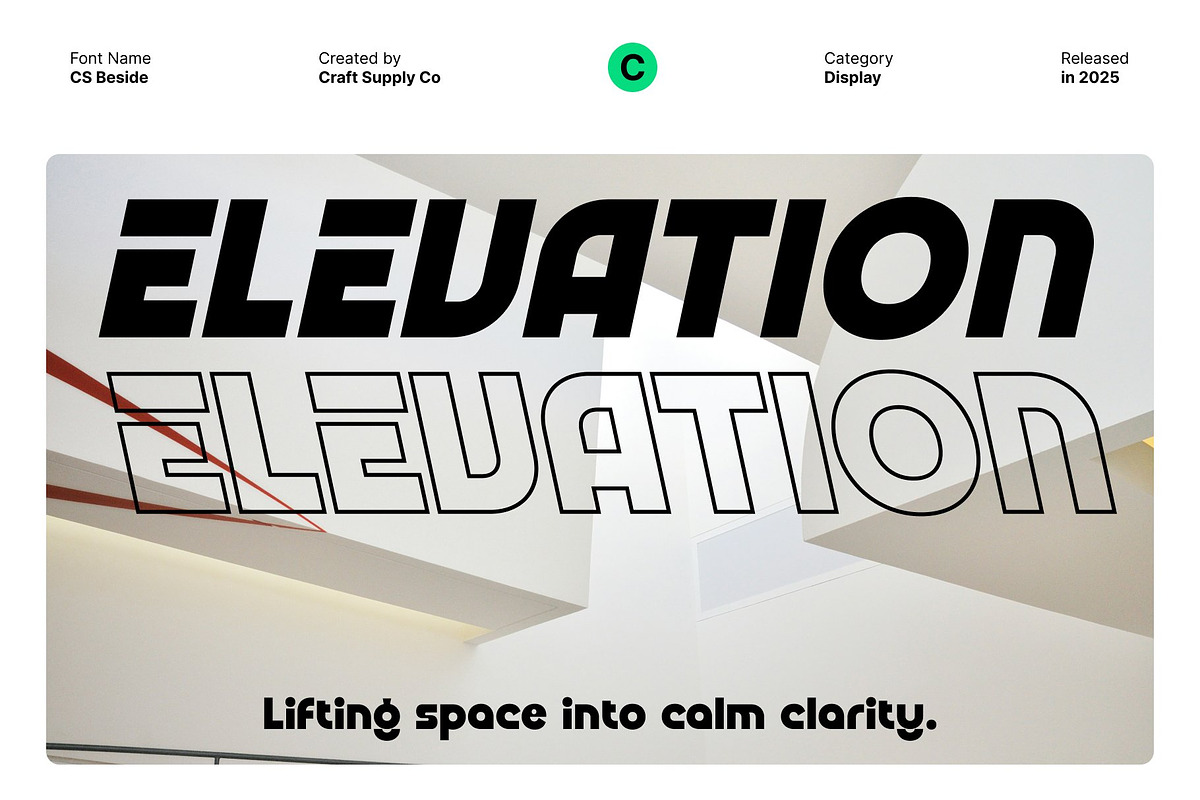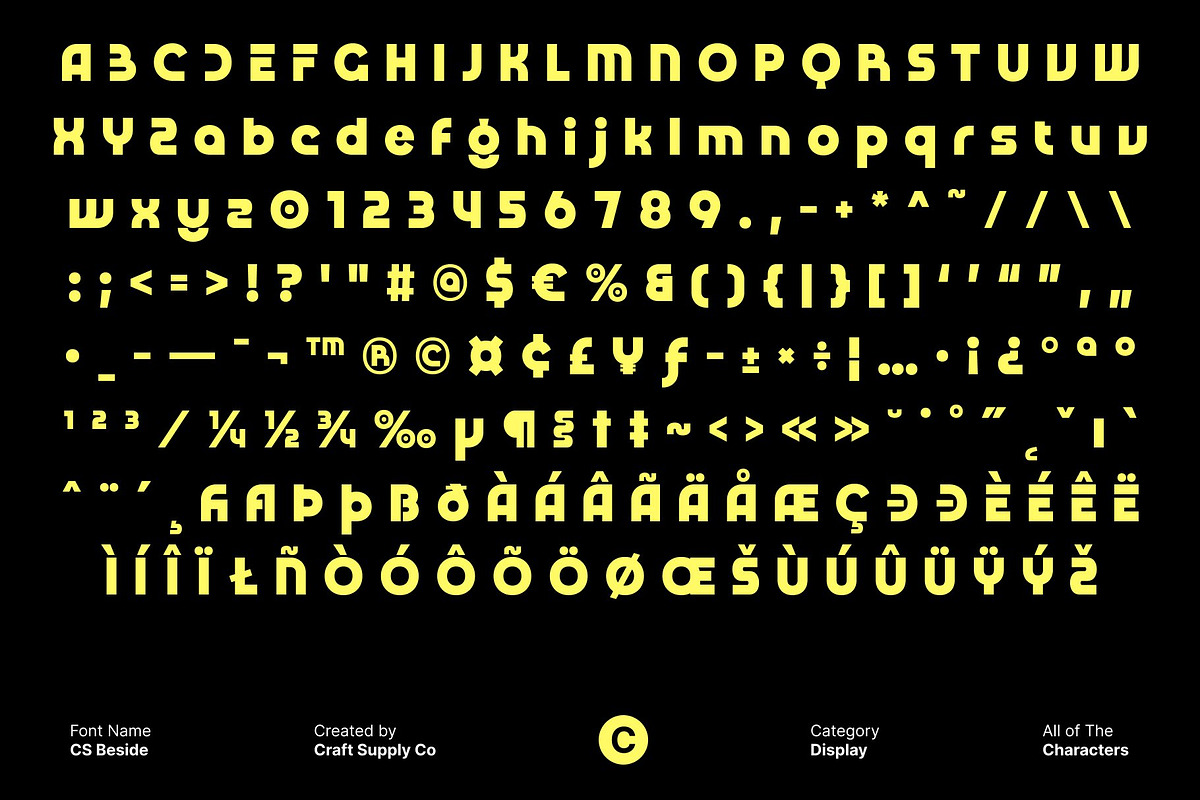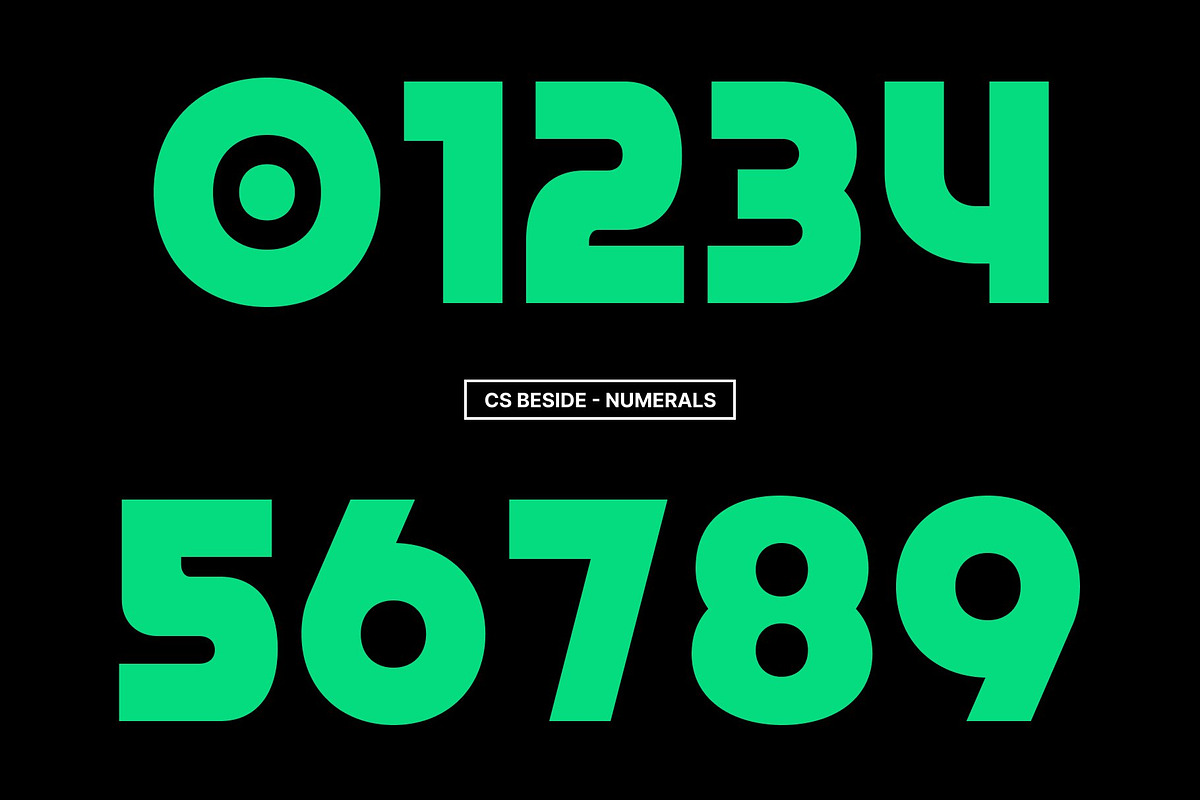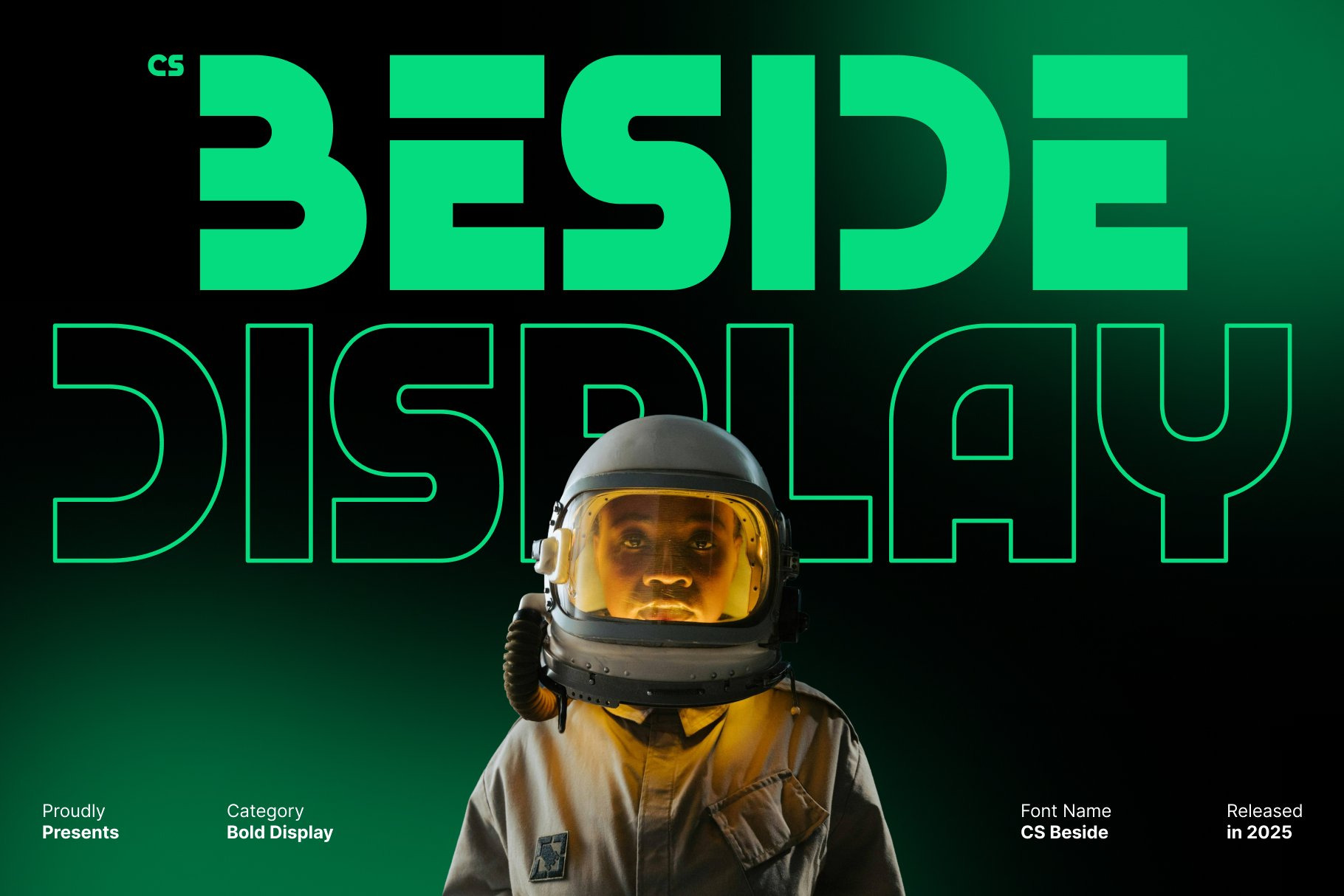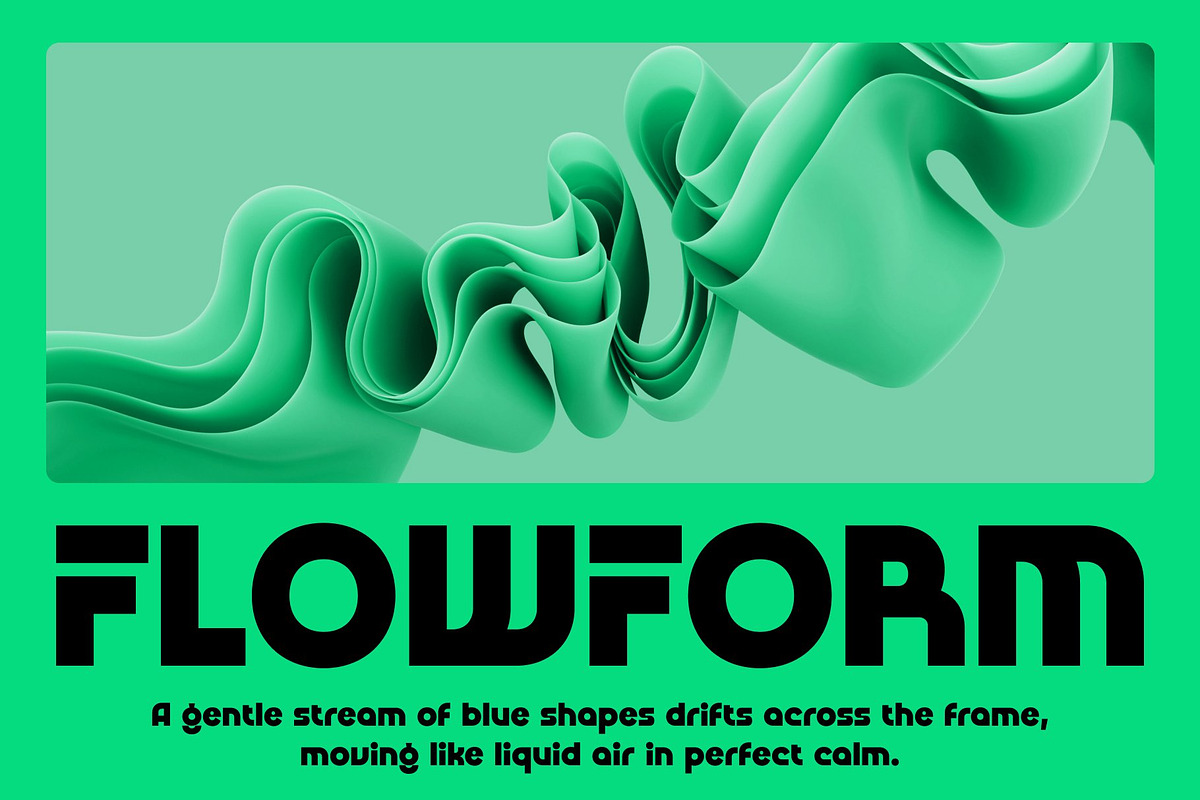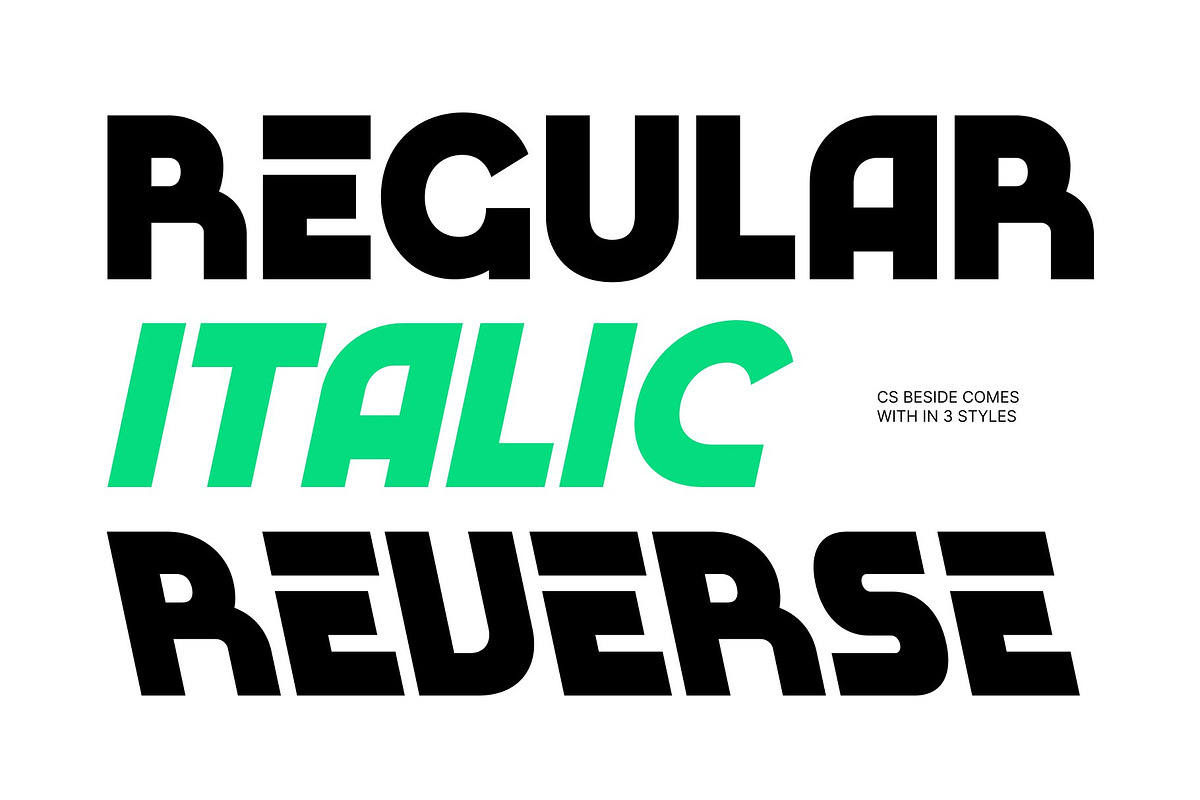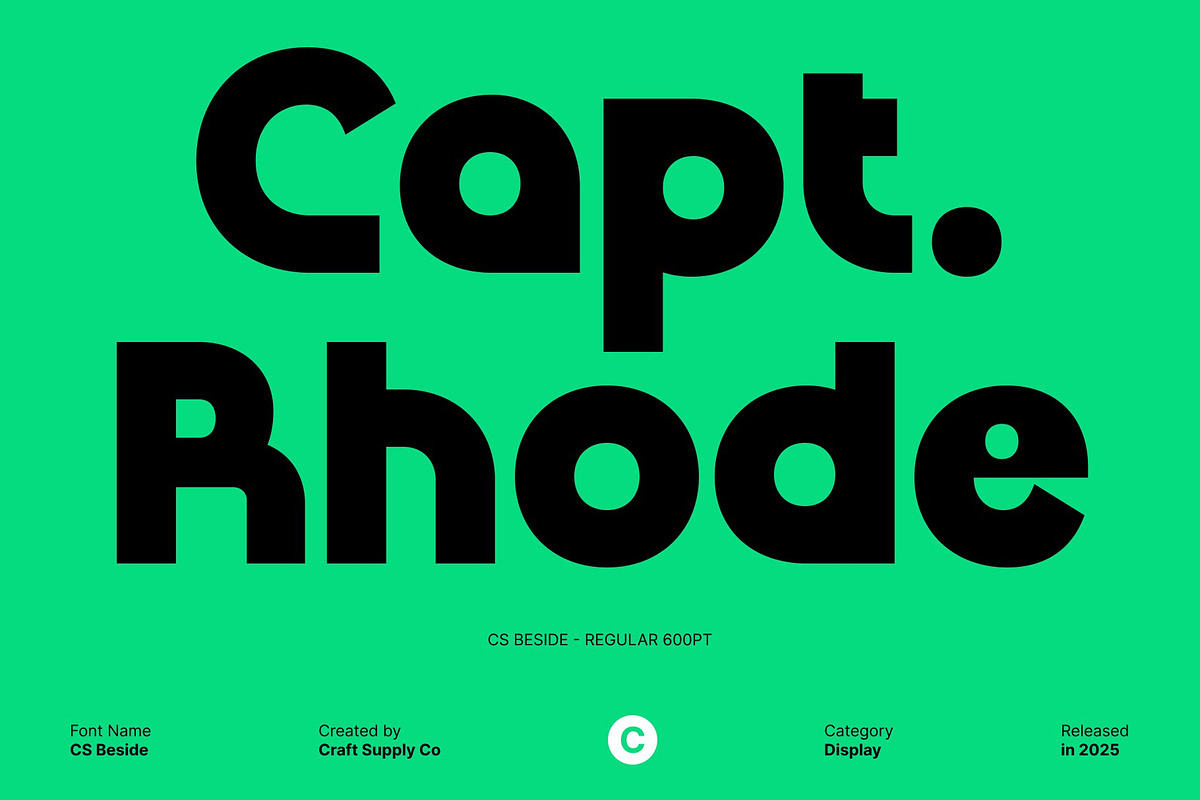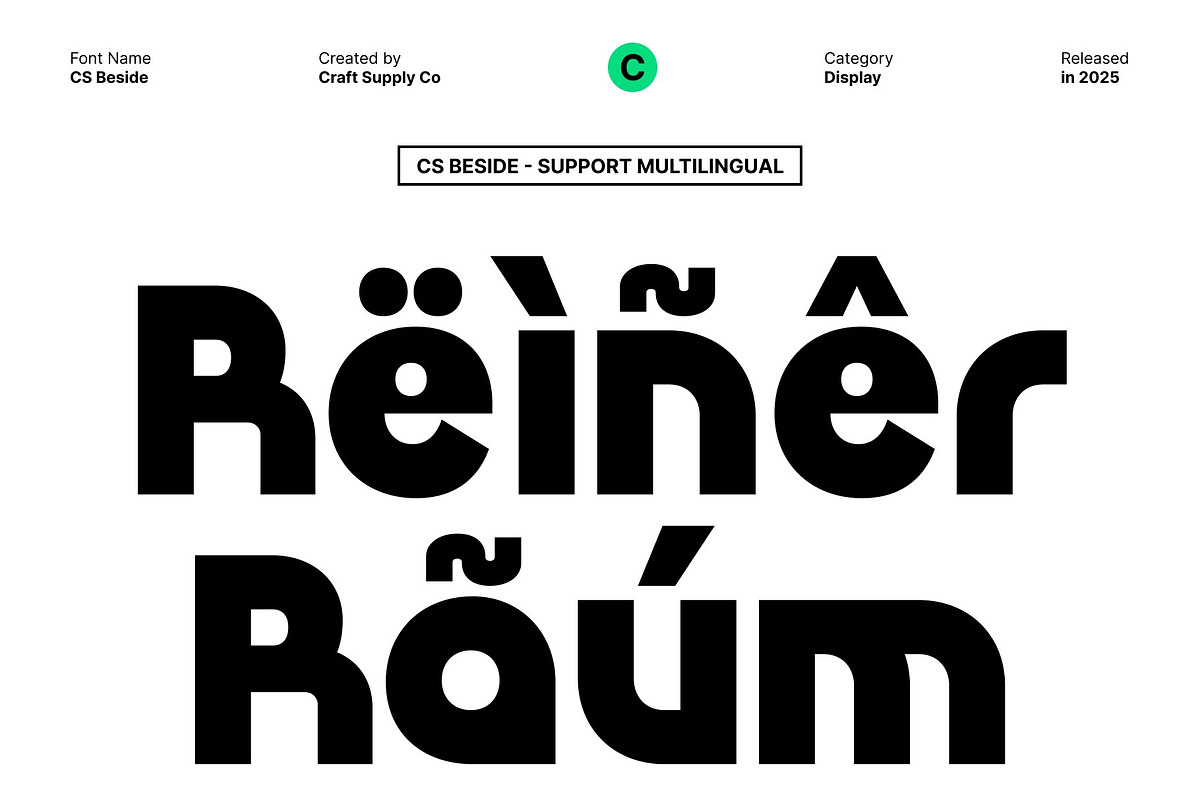
CS Beside – Bold Display Font
CS Beside – Bold Display Font: Experimental, Futuristic, and Striking
Powerful and Bold Display This is a bold display font that commands attention with its strong, impactful letterforms. Its experimental and futuristic design makes it ideal for projects that need a high-energy, visually striking presence. Perfect for posters, headlines, or branding, this font ensures your message stands out with authority and style.
Futuristic and Experimental Aesthetic The futuristic elements of give it a modern, cutting-edge vibe. Its unconventional shapes and daring design choices create a dynamic and engaging visual experience, making it perfect for innovative branding, creative campaigns, and editorial projects that aim to make a statement.
High-Impact Letterforms With its substantial weight and bold structure, delivers clarity and visibility even at large sizes. The font’s geometric and experimental qualities add personality and edge, ensuring that your designs feel contemporary, professional, and memorable.
Versatile for Creative and Bold Projects This font adapts seamlessly to various applications, from posters and advertisements to logos and headlines. Its bold, experimental style allows designers to convey strength, modernity, and creativity, making every project visually compelling and impossible to ignore.